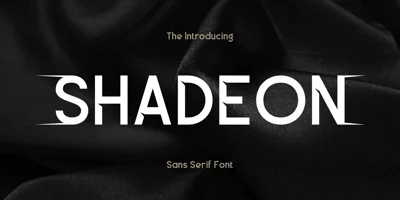
Shadeon Font
The Shadeon Font is perfect for noir film titles, mysterious brand identities, gothic event promotions, shadow puppet theater materials, dramatic lighting design studios, suspense novel covers, dark art exhibitions, and atmospheric restaurant branding. This captivating typeface works exceptionally well in applications where mystery and dramatic atmosphere need to be emphasized, making it ideal for brands that want to create intrigue and sophisticated darkness through compelling visual storytelling.
What makes Shadeon Font exciting is its masterful play with light and shadow that creates depth and mysterious allure in every letterform. The font's dramatic contrasts and shadowy character design create an atmosphere of sophisticated mystery and cinematic drama, making it perfect for brands that want to evoke intrigue, elegance, and artistic sophistication. Its shadowy presence ensures that every application feels cinematically compelling and visually striking with memorable dramatic impact.
The Shadeon Font family typically includes regular, bold, and outline variations, often featuring shadow effects, gradient transitions, and atmospheric elements that enhance its mysterious appeal. Many versions include dramatic ligatures, shadow alternates, and specialized characters that provide designers with comprehensive tools for creating compelling noir-inspired design projects with authentic cinematic atmosphere and sophisticated visual drama.
For designers working on projects that require atmospheric mystery and cinematic sophistication, Shadeon Font delivers exceptional dramatic impact. Its ability to instantly communicate intrigue and artistic depth makes it an invaluable choice for entertainment brands, cultural institutions, and any project requiring typography that embodies the captivating allure of shadows, the sophistication of film noir, and the compelling beauty of dramatic visual storytelling.